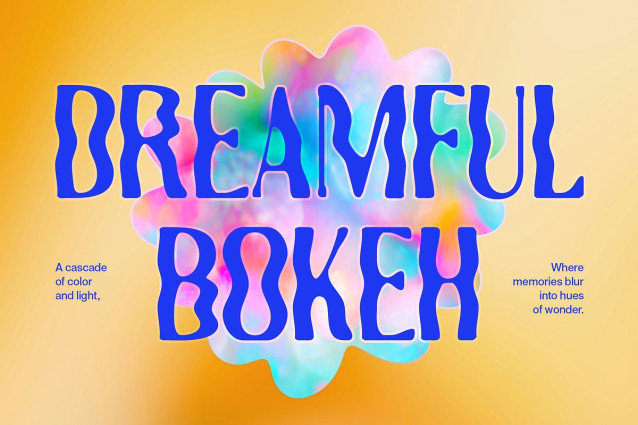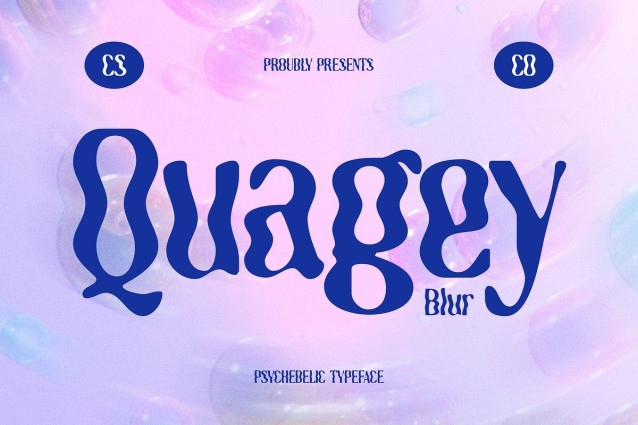
Quagey Blur Font
Quagey Blur Font is a psychedelic display font that blends funky, expressive shapes with an imaginative and vibrant visual rhythm. Inspired by retro and surreal aesthetics, its warped and fluid forms instantly draw attention, radiating a playful yet bold personality.
Blur Effect for Dreamlike Visuals What sets Quagey Blur apart is its unique blur effect, applied thoughtfully to each letter. This creates a soft, fluid, and dreamy texture that enhances the psychedelic feel, giving your text an almost liquid quality. The effect adds depth and visual motion, making the font ideal for designs that evoke fantasy, movement, or altered perception.
Perfect for Expressive and Experimental Design Whether used in music posters, abstract visuals, experimental graphics, or artistic branding, Quagey Blur infuses every layout with motion and intensity. Its funky letterforms and psychedelic style speak directly to creative audiences and niche aesthetics.
Bold, Surreal, and Full of Personality Quagey Blur is more than just a font—it’s a statement. Use it when you want your design to radiate creativity, eccentricity, and emotion. Whether you’re channeling vintage festival vibes or designing for a new wave of digital artistry, this font ensures your message looks as bold and imaginative as your vision.